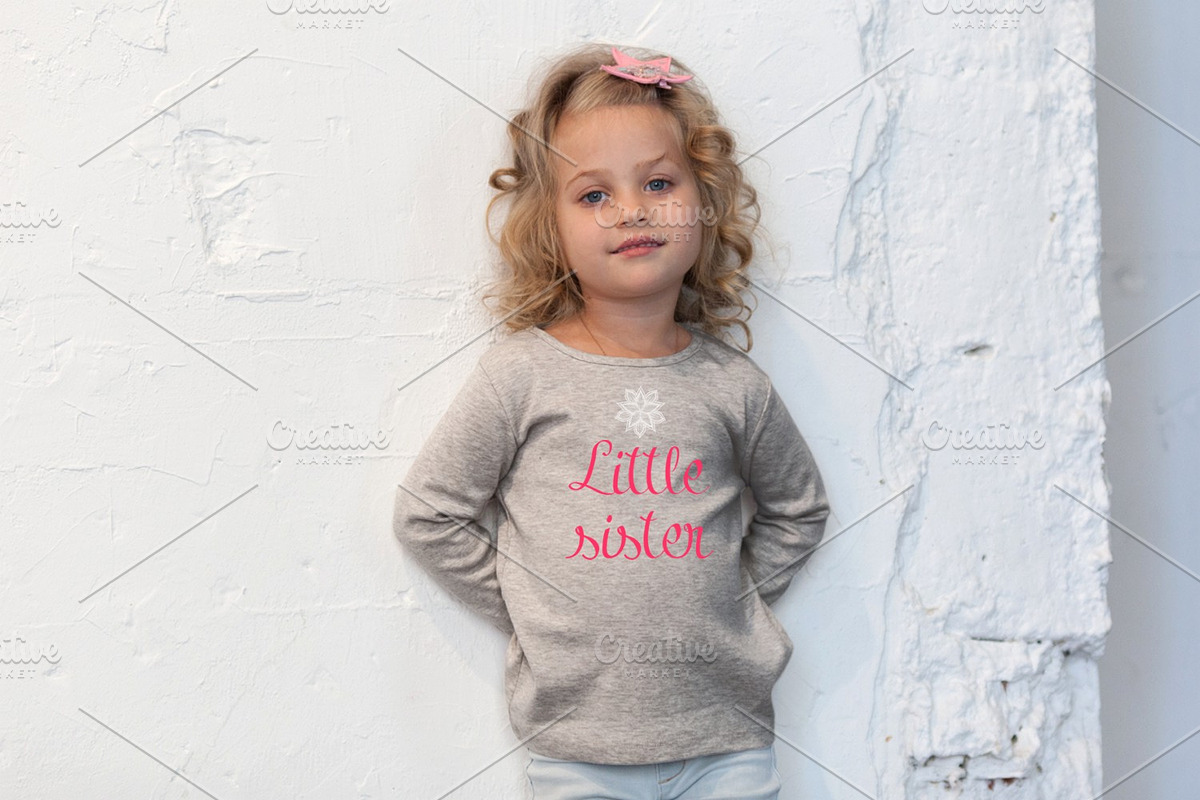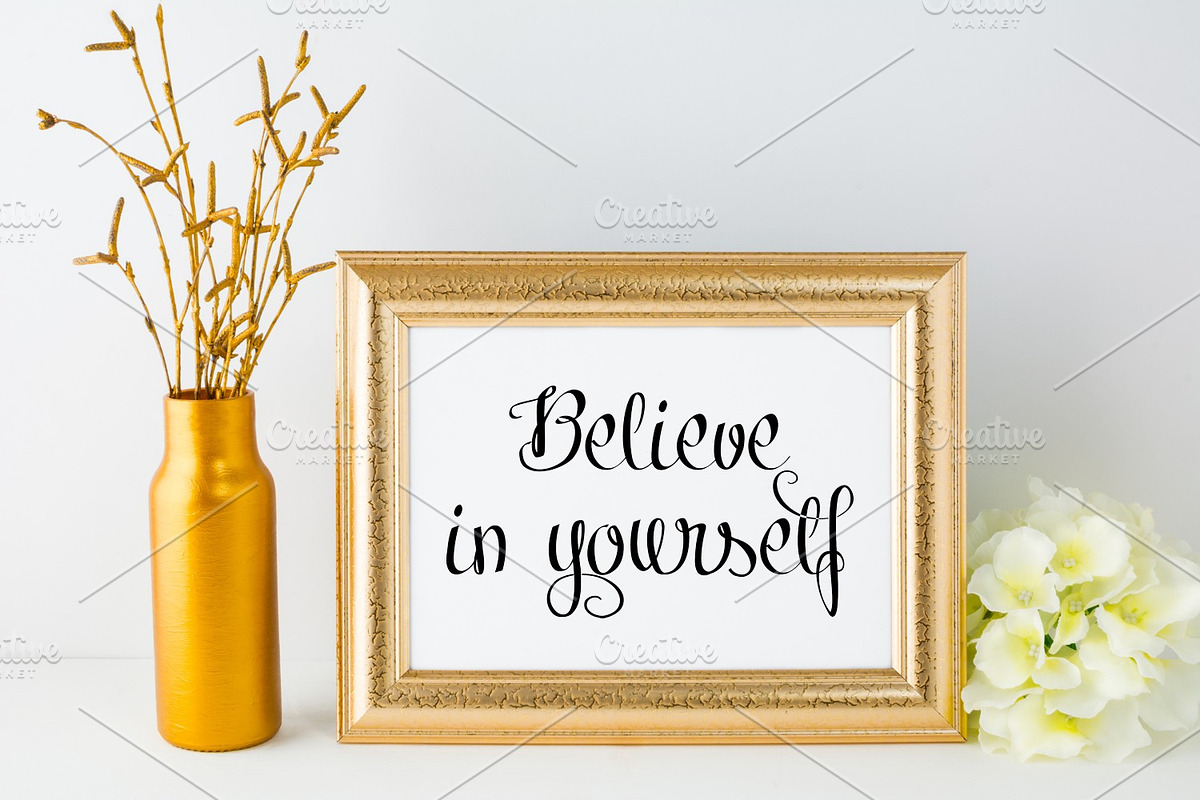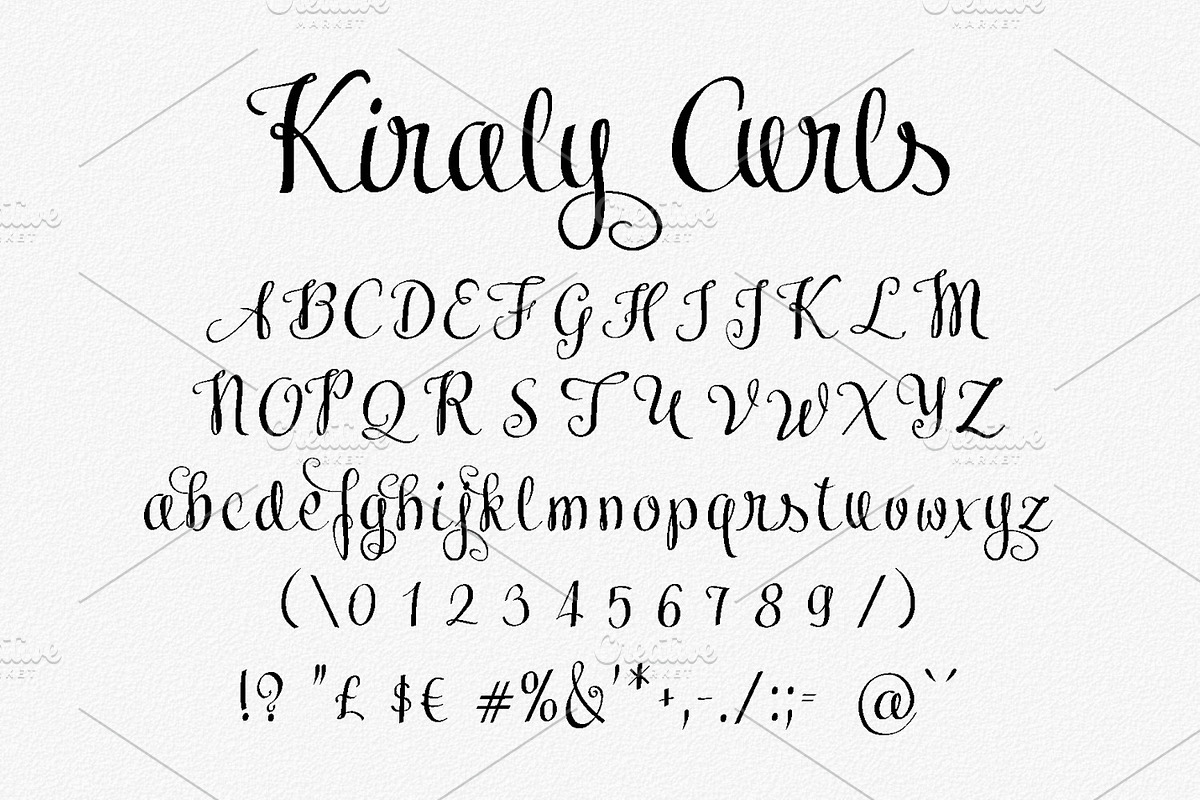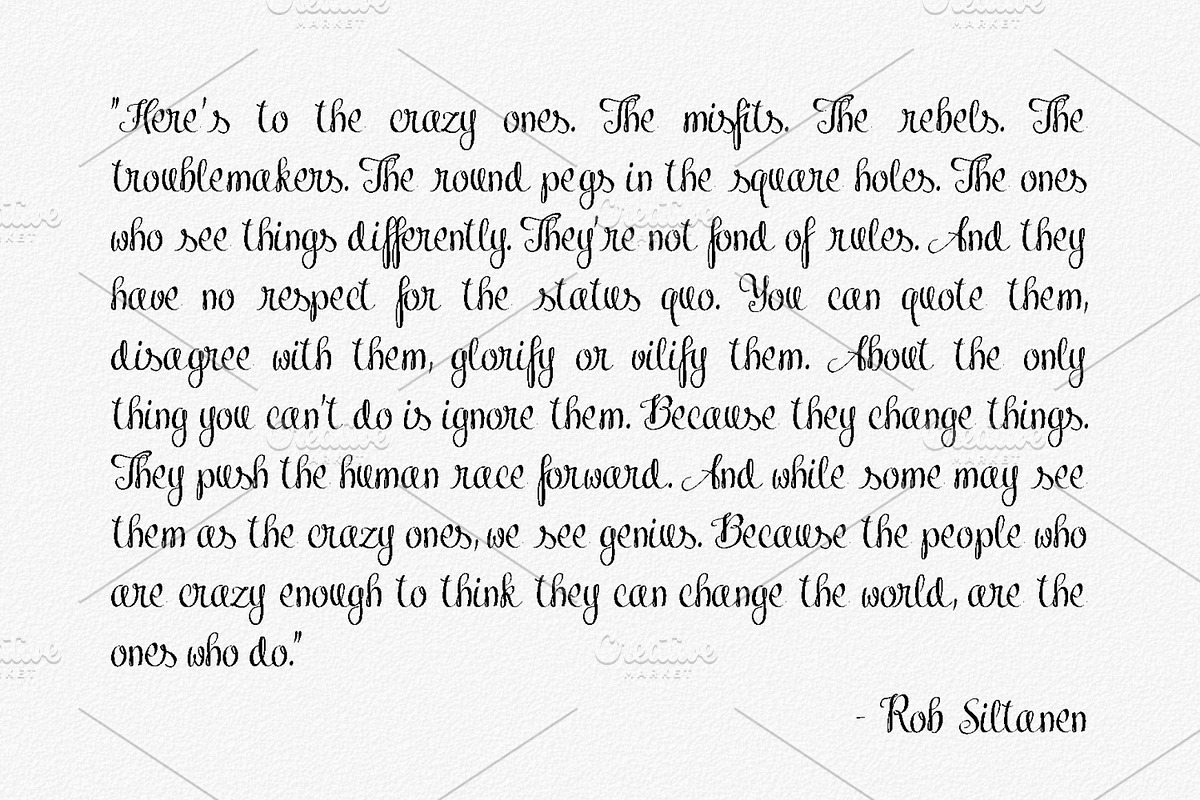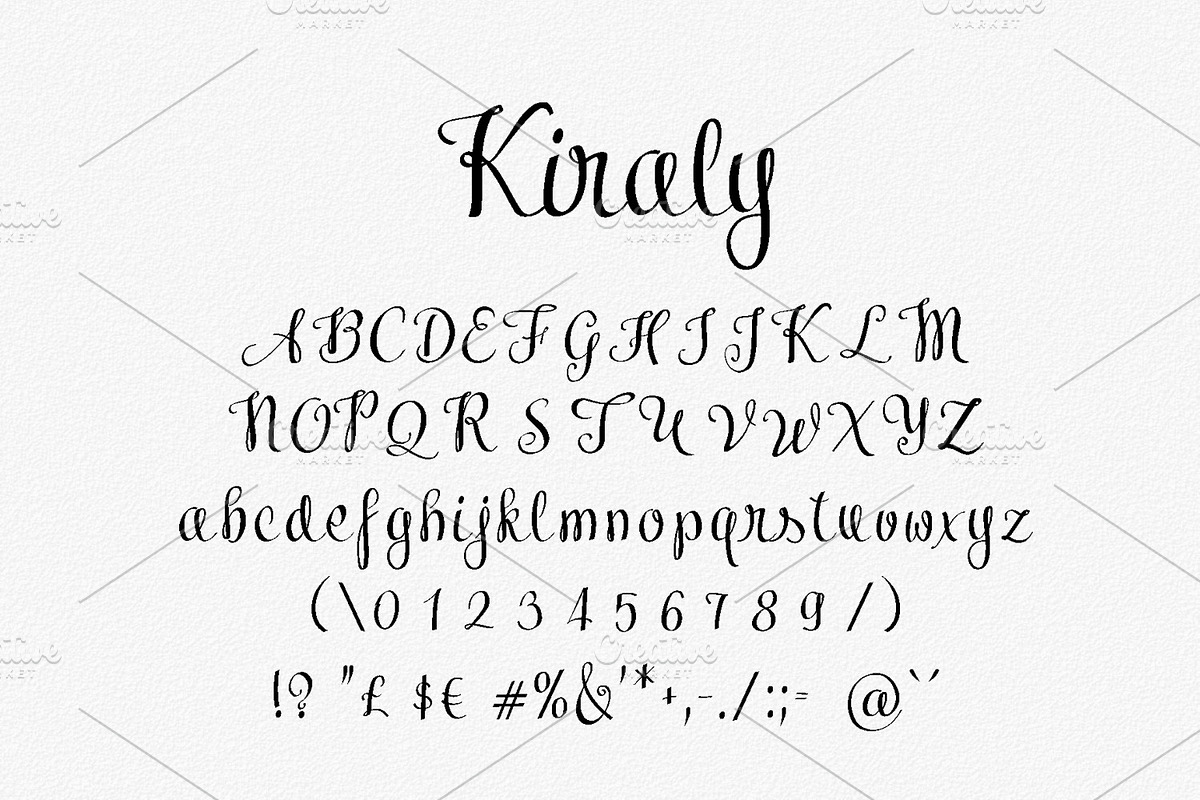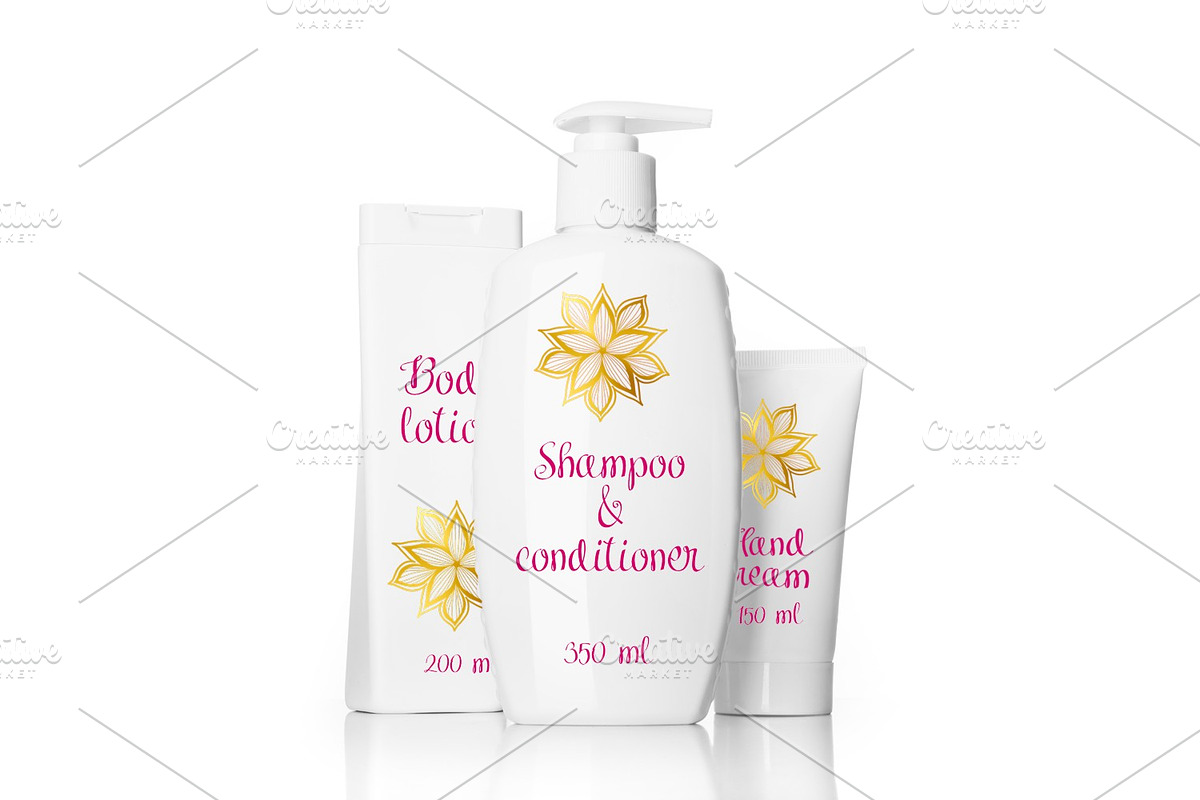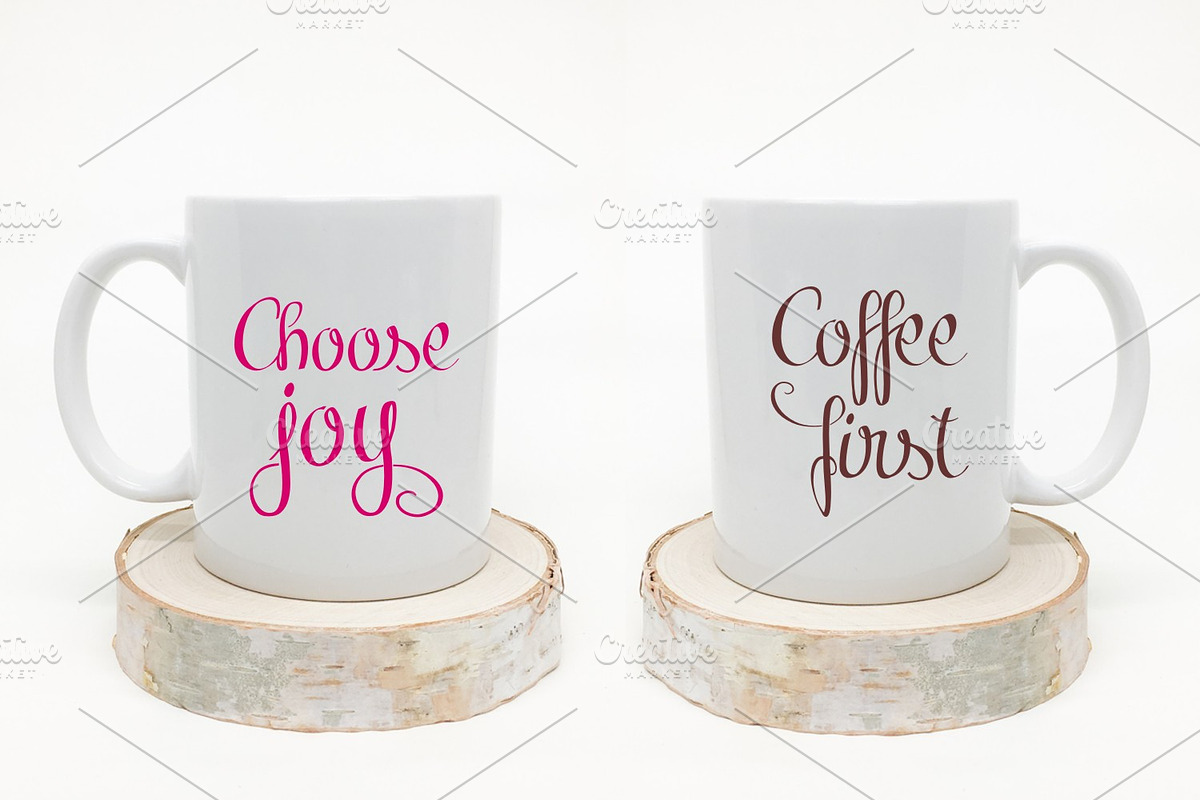
Kiraly font duo
Introducing Kiraly calligraphy font duo. Perfect for wedding desings and many other creative craft area such as stencils, engraving, laser cutting and more!
- Kiraly Regular
- Kiraly Curls Regular